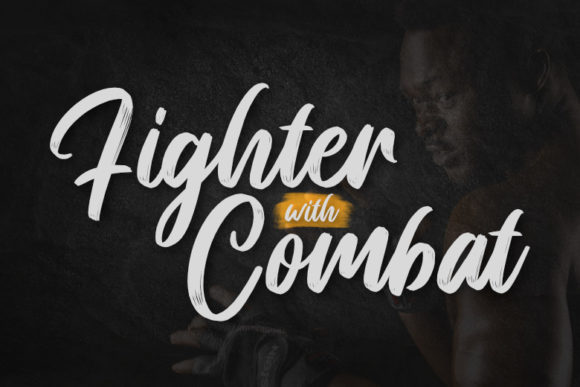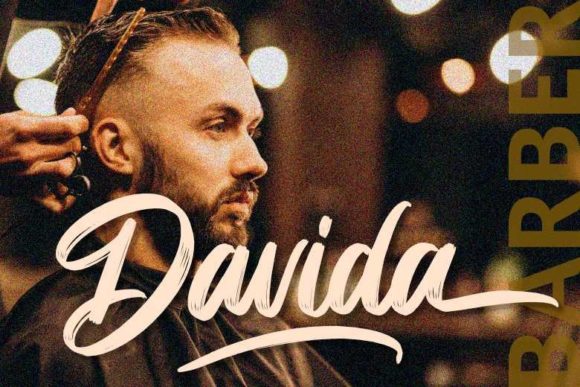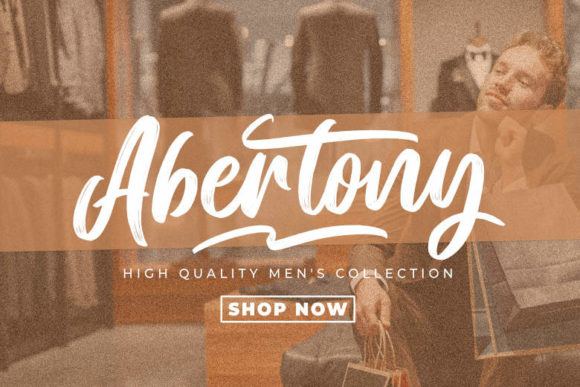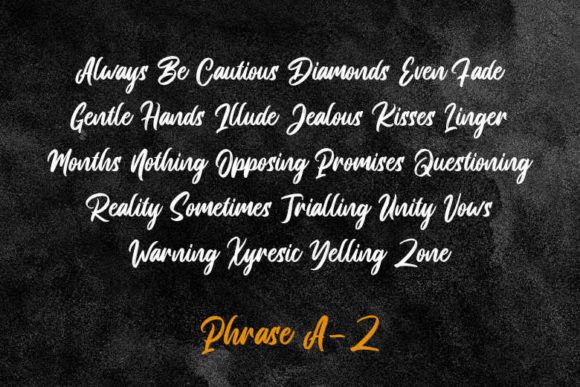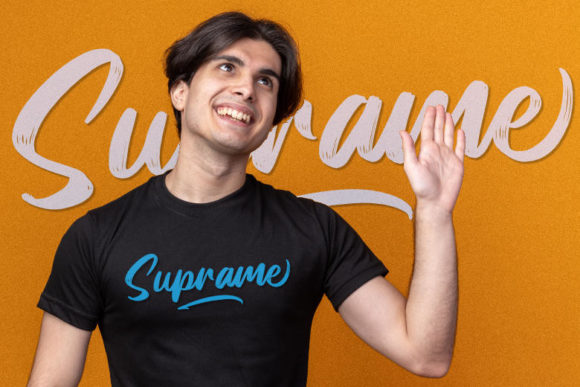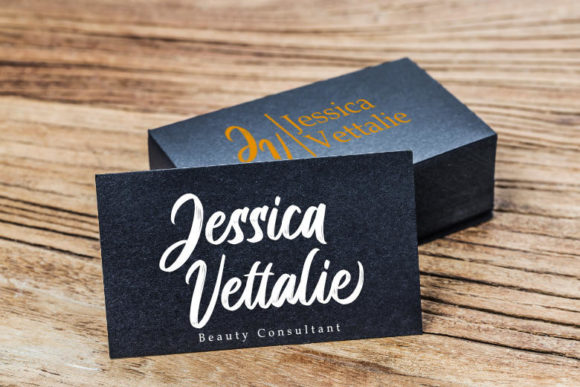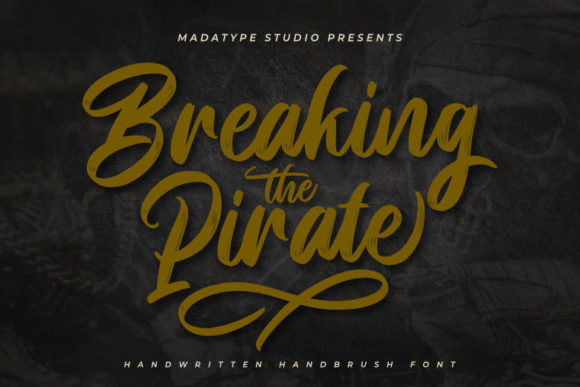
The Elusive Perfect Font: My Encounter with Breaking Pirate
Ah, the quest for the perfect font. It’s a journey many of us designers and creative hobbyists know all too well. I recall working on a project, pouring my heart and soul into it, but feeling like something was off. The design was beautiful, but the font just didn’t match the vibe I was going for. My client wanted something that exuded sophistication and elegance, but I was struggling to find a font that fit the bill. That’s when I stumbled upon Breaking Pirate, a chic, brushed script font that has since become a staple in my design toolkit.
First Impressions: A Review of Breaking Pirate
So, what makes Breaking Pirate so special? Let’s dive into the good stuff! 😊
- ✨ Sophisticated and elegant: Breaking Pirate’s brushed script style gives it a luxurious feel that’s perfect for high-end projects.
- ✅ Stylish alternates and ligatures: This font is packed with OpenType features that allow for endless customization and creativity.
- ⚡️ Highly versatile: Breaking Pirate works beautifully for a wide range of projects, from branding and packaging to wedding invitations and more.
The Not-So-Perfect Font: A Few Quirks
While Breaking Pirate is an amazing font, it’s not without its limitations. Here are a few things to keep in mind:
- 🤔 Limited use in body text: Due to its script nature, Breaking Pirate works best as a headline or accent font. It may not be the best choice for lengthy body text.
- ⚠️ Some characters may require manual adjustment: Depending on the context, certain characters may need a bit of tweaking to look their best.
The Story Behind Breaking Pirate
While the origins of Breaking Pirate are shrouded in mystery, it’s clear that the designer poured their heart and soul into creating a truly unique font. Perhaps the designer, inspired by the golden age of piracy, sought to create a font that embodied the elegance and sophistication of a bygone era. Whatever the inspiration, Breaking Pirate has become a beloved font among designers and creative hobbyists.
| Font Name | Breaking Pirate Font |
| Author | Madatype Studio |
| What makes Breaking Pirate so special? | Breaking Pirate’s unique blend of sophistication, elegance, and stylish alternates and ligatures make it a standout font. |
| Is Breaking Pirate suitable for body text? | While Breaking Pirate is beautiful, it’s best used as a headline or accent font. For body text, consider a more traditional font. |